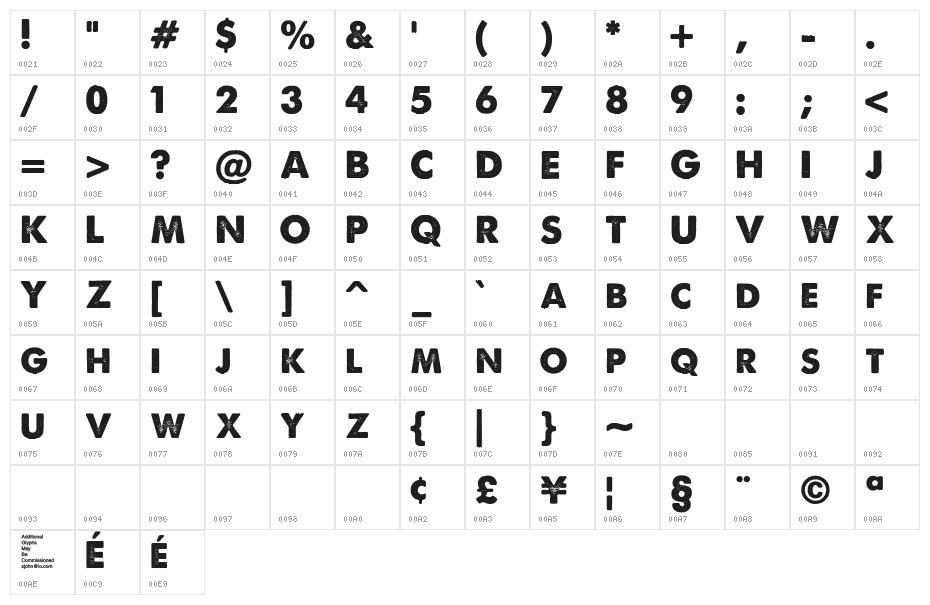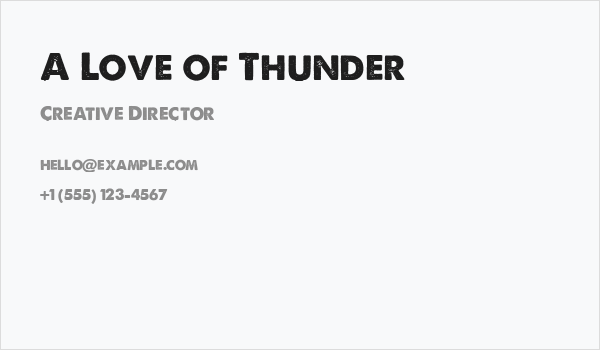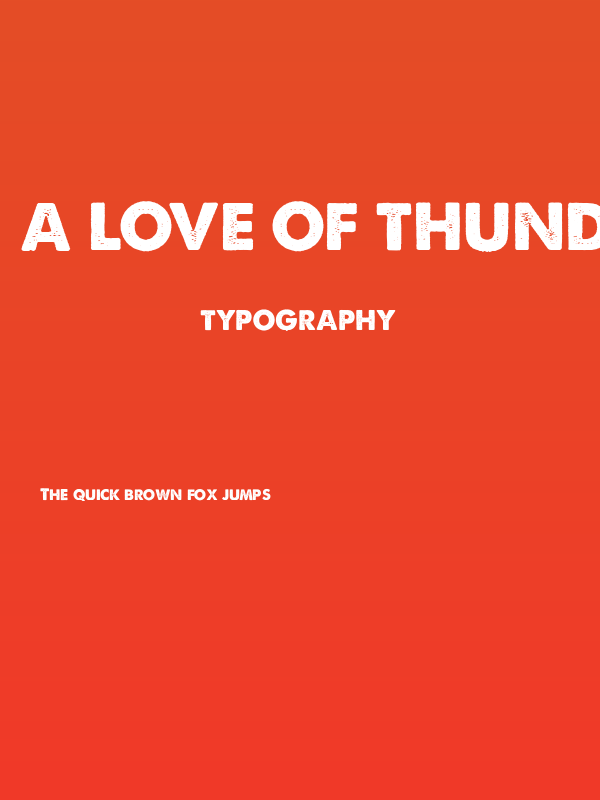
A Love of Thunder Font
A Love of Thunder Description
This font features a bold and distressed style, giving it a rugged and vintage appearance. The characters are thick and heavy, with a textured look that suggests wear and tear, adding a sense of history and character. The uppercase and lowercase letters are consistent in their boldness, while the numbers and special characters maintain the same distressed aesthetic. This font is ideal for creating impactful headlines or logos that require a strong, eye-catching presence. Its unique style makes it suitable for projects that aim to convey a sense of nostalgia or authenticity.
| Proposed Projects | Ideal for vintage-themed posters, logos, branding, and headlines. |